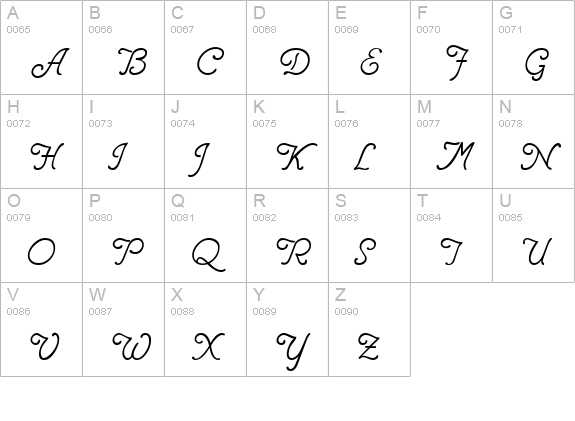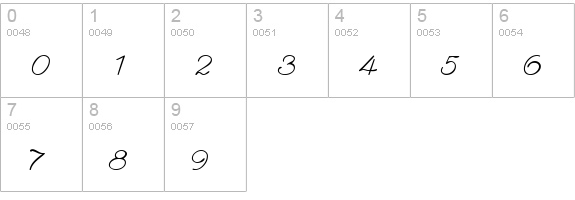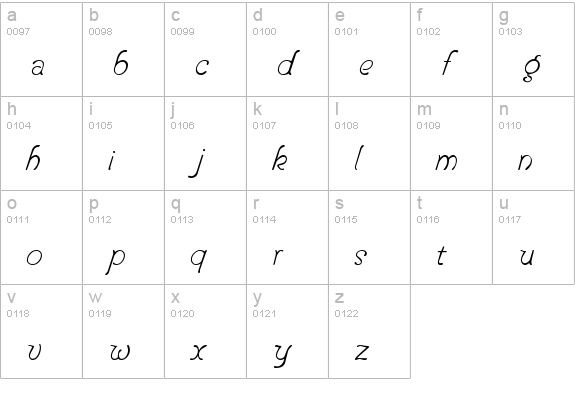
Pen Tip Font Details
Introducing Pen Tip, a beautifully crafted font that brings a touch of elegance and sophistication to your designs. This unique typeface is perfect for adding a hand-drawn, artistic flair to any project, whether it be a logo, poster, or invitation. With its delicate and graceful strokes, Pen Tip captures the essence of a traditional calligraphy pen, making it a versatile choice for both casual and formal designs. The flowing lines and tapered edges create a sense of movement and fluidity, giving your text a sense of dynamism and energy. But what sets Pen Tip apart is that it is not only a stunning font, but it is also free. Yes, you read that right! Pen Tip is freely available to download at FontsMarket.com, giving you the opportunity to enhance your designs without breaking the bank. Whether you're a professional designer or a hobbyist, Pen Tip offers a wide range of possibilities. Its clean and legible characters make it easy to read, while its unique style adds a touch of personality and charm. Use it to create eye-catching headlines, elegant wedding invitations, or simply to add a touch of whimsy to your everyday projects. So why wait? Download Pen Tip today and unlock the potential of this beautiful font. With its free availability at FontsMarket.com, you have nothing to lose and everything to gain. Let Pen Tip be your go-to font for all your creative endeavors, and watch your designs come to life with an effortless grace.